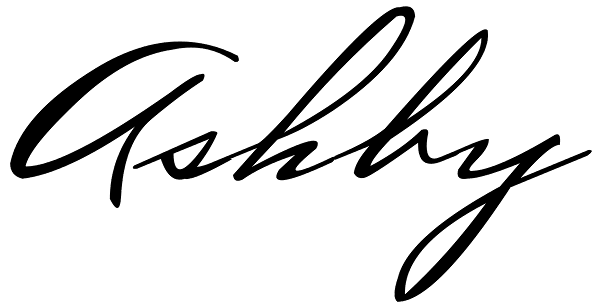
Ashby
Ashby is a Spencerian based handwritten script, with elegant capital letters. Written with a flexible nib, which results in some beautiful line width variation.